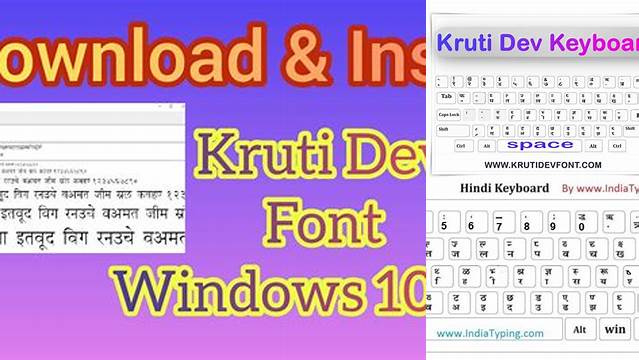
1. Understanding the Basics: What is Kruti Dev Font?
Alright, first things first: what exactly is the Kruti Dev font? Basically, it's a popular Hindi-language font widely used in India and other regions where Hindi is spoken or written. Think of it as the go-to font for typing in Devanagari script. It's designed to make the complex shapes and combinations of Hindi characters look clear and readable. Because of its clean design, it is very versatile and is a solid choice for documents, posters, and anything else that requires Hindi text. The Kruti Dev font isn't just a font; it's a bridge connecting digital text to a rich cultural heritage. This font provides a reliable way to communicate in Hindi. Its compatibility and ease of use have made it the standard choice for typing in Hindi across numerous software programs. Whether you're crafting a simple note or preparing a more complex project, Kruti Dev font has you covered. With Kruti Dev font, the intricacies of the Devanagari script are presented in a legible and visually pleasing format, ensuring that the message is clear and easily understood. The importance of the font extends to its ability to preserve and promote the Hindi language in digital spaces. It's not only a tool for digital writing, but also a key component in maintaining cultural relevance in the digital age. The Kruti Dev font has become an essential tool for anyone involved in Hindi-based content, acting as a digital asset that combines functionality with cultural representation.
1.1. Why is Kruti Dev Font so popular?
So, why is the Kruti Dev font so popular? Well, there are a few key reasons. First off, it's incredibly easy to read. The design of the font makes it simple to distinguish between characters. Secondly, it's widely supported. Many software programs and platforms readily support the Kruti Dev font. This compatibility means you won't have to jump through hoops to get it working. Lastly, it has a huge community backing it up. Many writers and designers have embraced the Kruti Dev font, which means plenty of tutorials, resources, and support are available online. This community also makes the font a go-to choice for many Hindi speakers. The ease of use and robust community make Kruti Dev font an ideal choice for many. Moreover, the font plays a crucial role in Hindi's continued use in the digital landscape. The Kruti Dev font is very user-friendly and is available on numerous platforms, which makes it a favorite among users who need to type Hindi content. The large number of resources also ensures users get excellent support and solutions to their font-related issues, which ensures a smooth and effective experience. From casual users to professional designers, the popularity of the Kruti Dev font is due to its ease of use and community support.
1.2. Key Features of the Kruti Dev Font
Let's dig deeper into the key features of the Kruti Dev font. Firstly, it's designed to be highly legible. The font's design makes sure that each character is easily distinguishable, even in complex Hindi scripts. The well-defined strokes and spacing reduce any ambiguity, making it perfect for longer documents. Another crucial feature is the wide support available. You'll find that it works seamlessly across different software programs and operating systems. Furthermore, the Kruti Dev font is available in various weights and styles. You can choose between regular, bold, italic, and even different sizes to match your project's needs. The versatility of the Kruti Dev font makes it adaptable to multiple design applications. Its design supports ease of reading and its robust support ensures compatibility with many programs and systems. It's a go-to font choice for diverse users from all walks of life, whether for everyday use or for professional projects. This makes it a preferred choice. Therefore, the features of the Kruti Dev font improve readability and the capability of integrating with many programs. Its versatility and wide availability guarantee that it can meet the needs of every user.